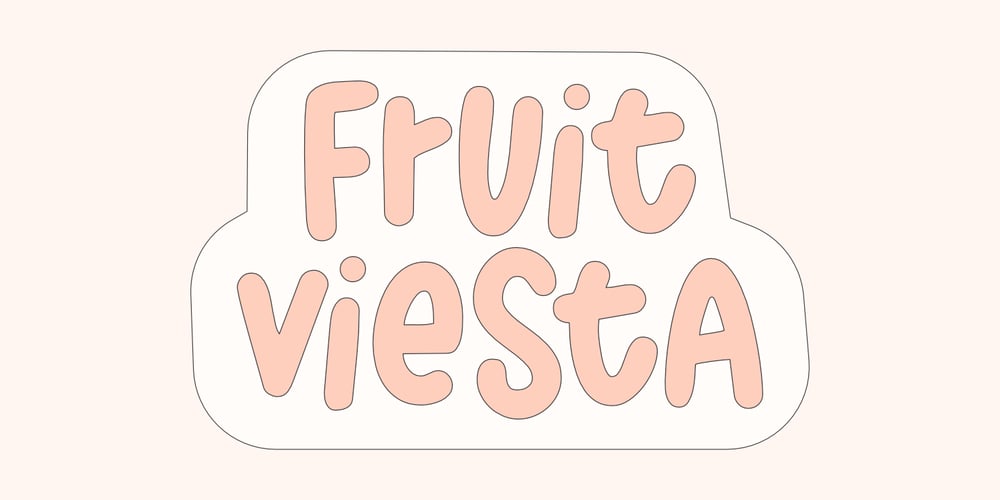
Fruit Viesta Font Family was designed by Aldy Sidik and published by Epiclinez. Fruit Viesta contains 1 styles and family package options. Fruit Viesta is a simple, fun, and relaxed handwritten font. A little bit bouncy, this smooth and bold font looks incredibly adept in a wide variety of contexts, whether you’re using it for crafting, digital designing, presentations, or even school projects, it’s perfetto! Get creative with its childlike playfulness, and use it to brighten up any of your wonderful projects.